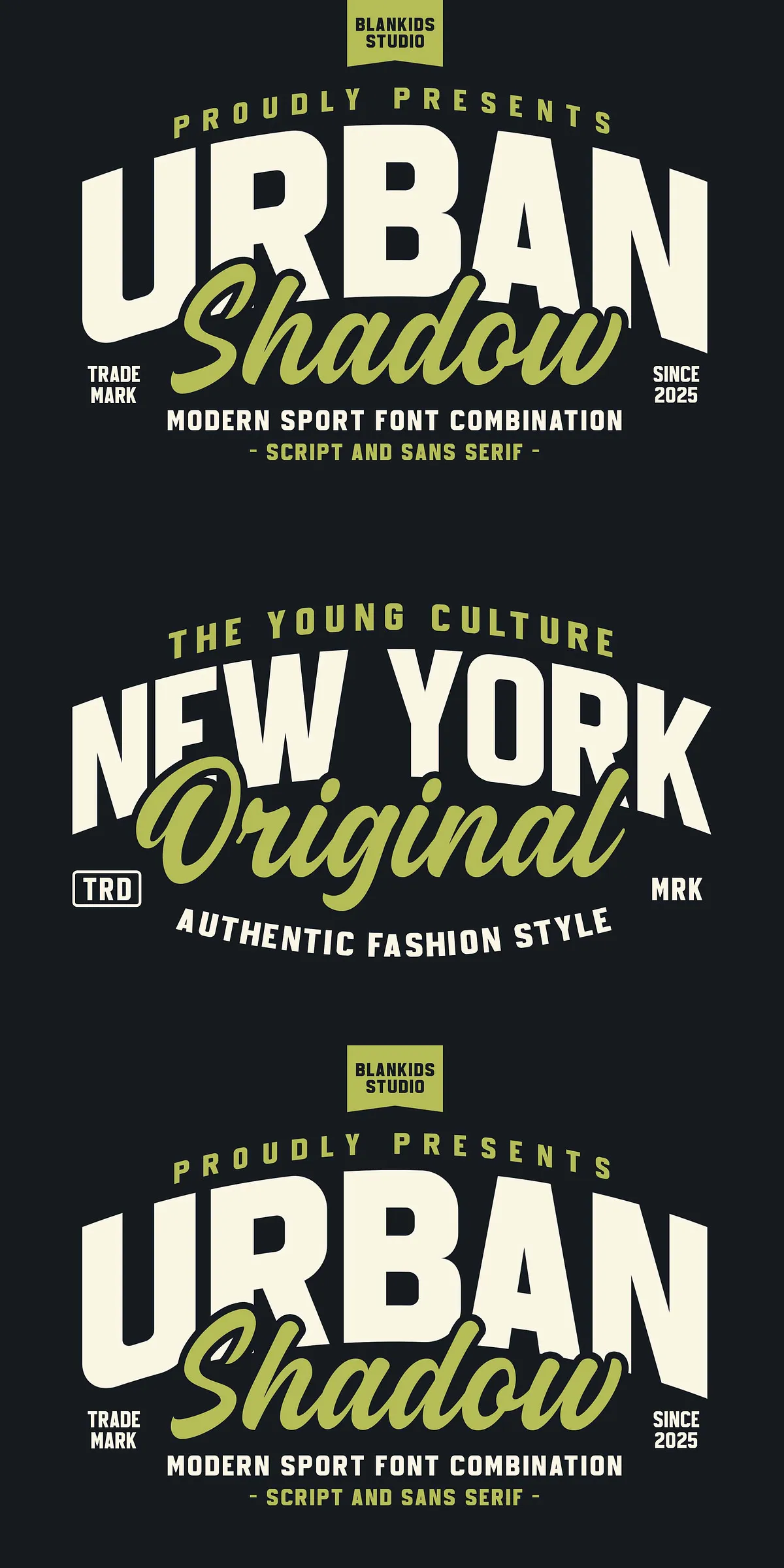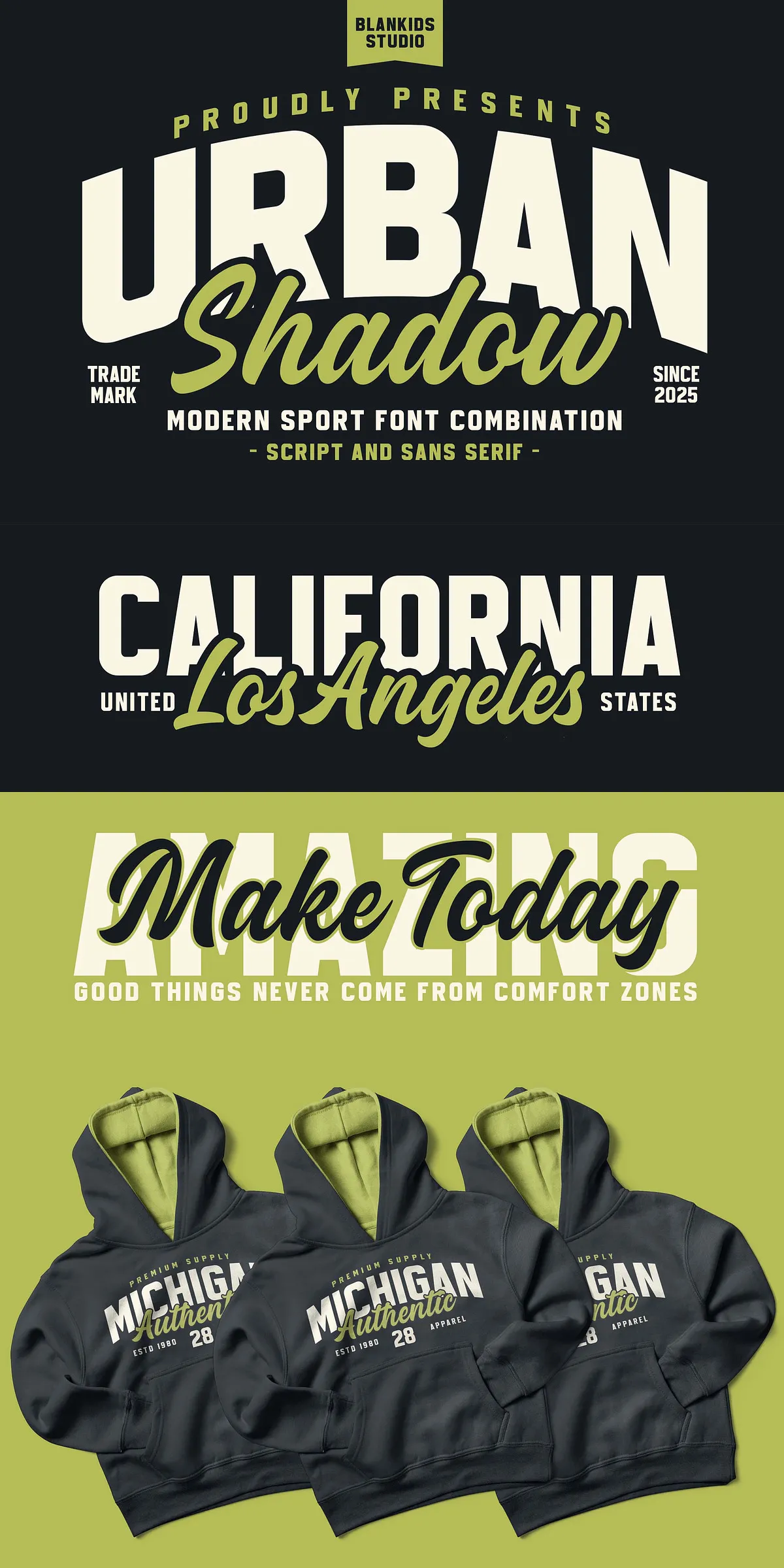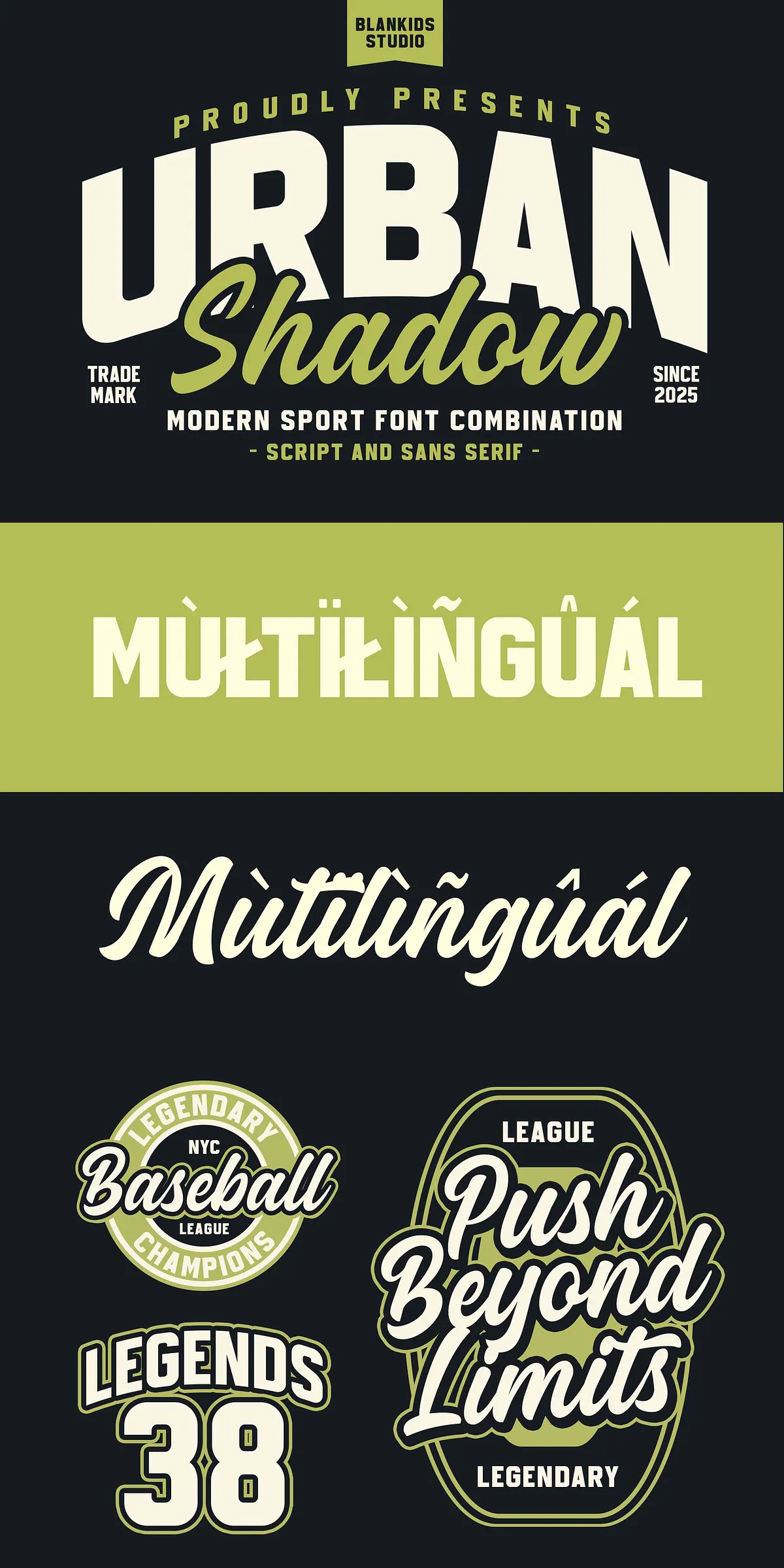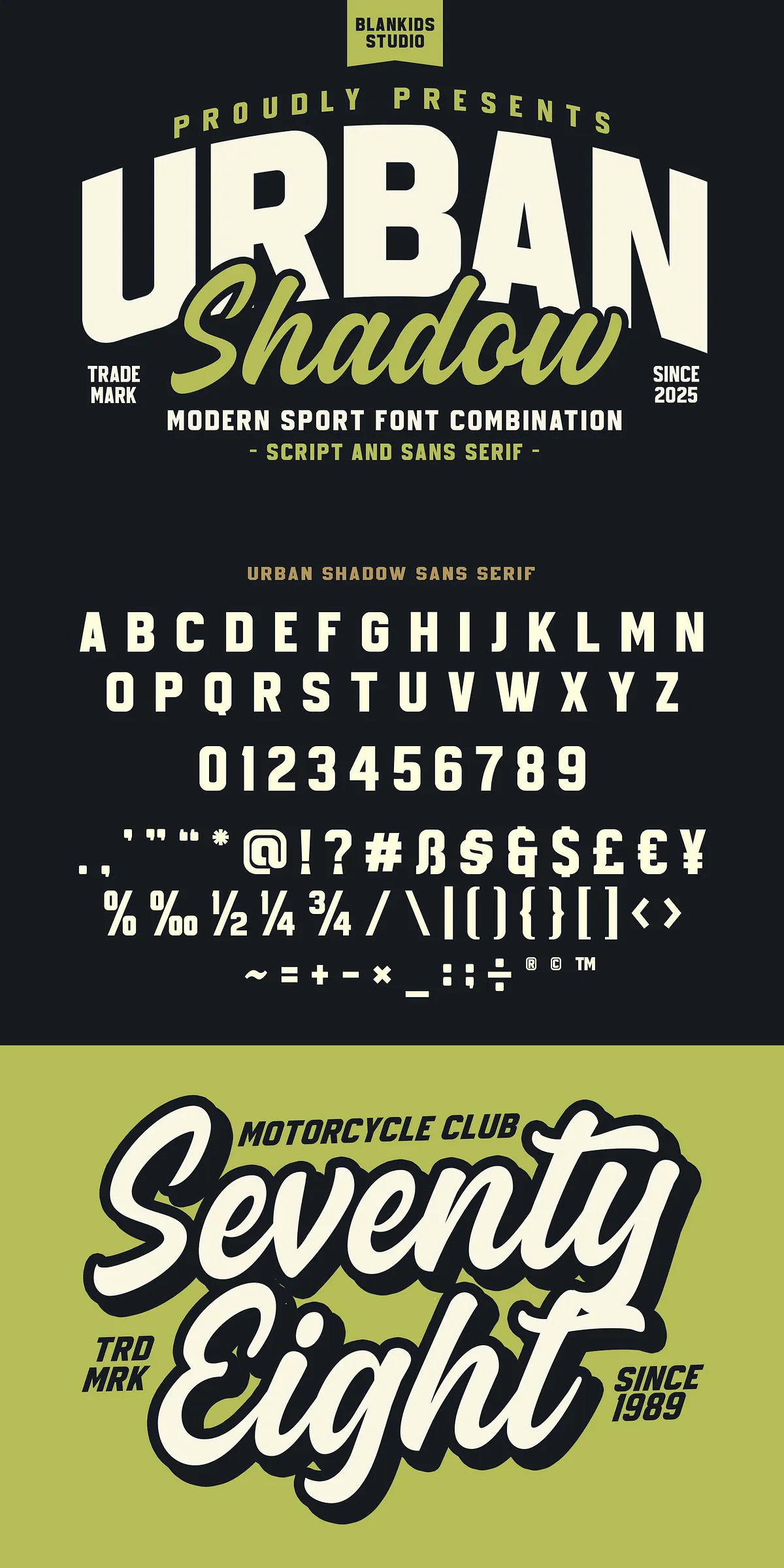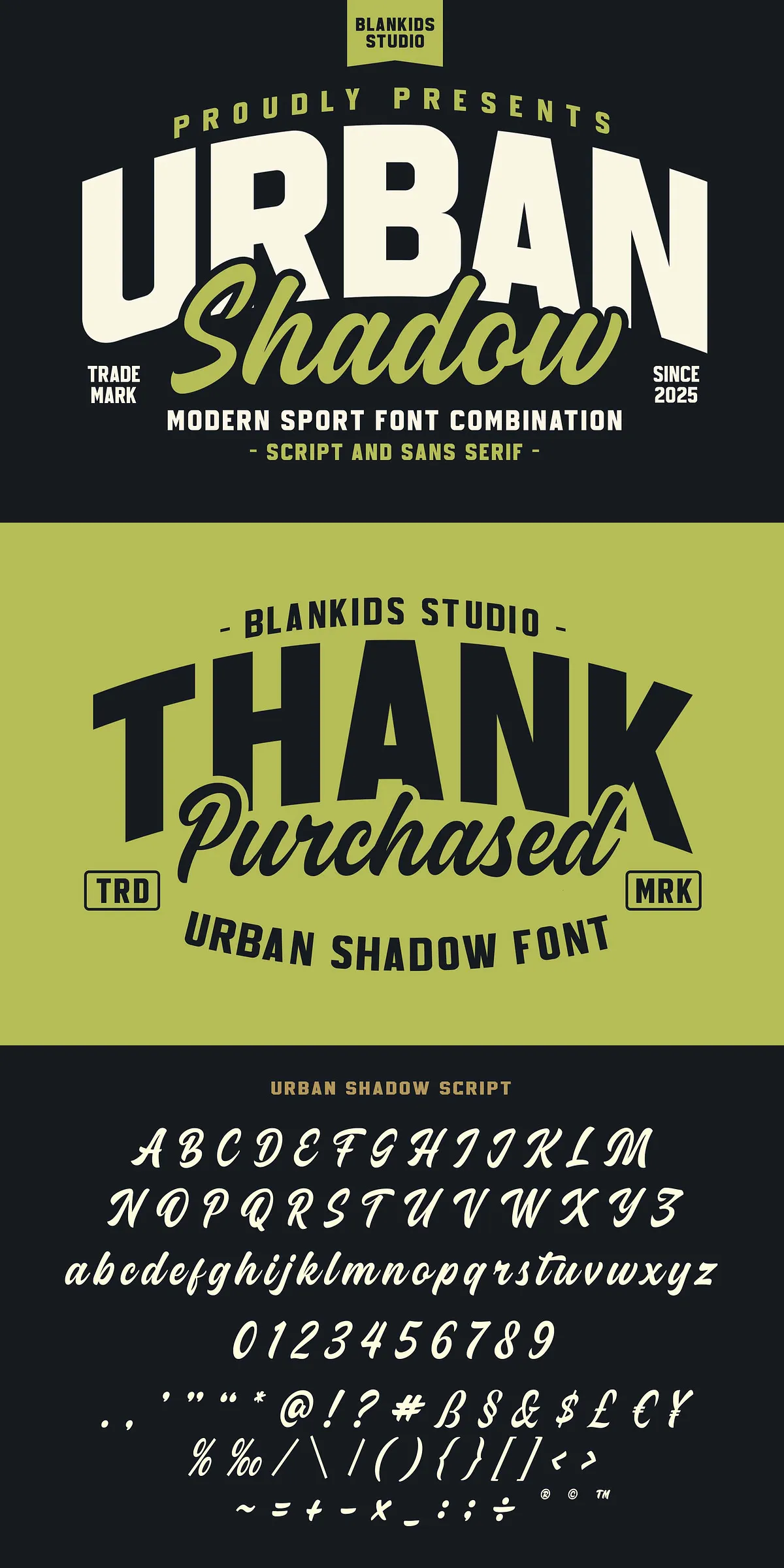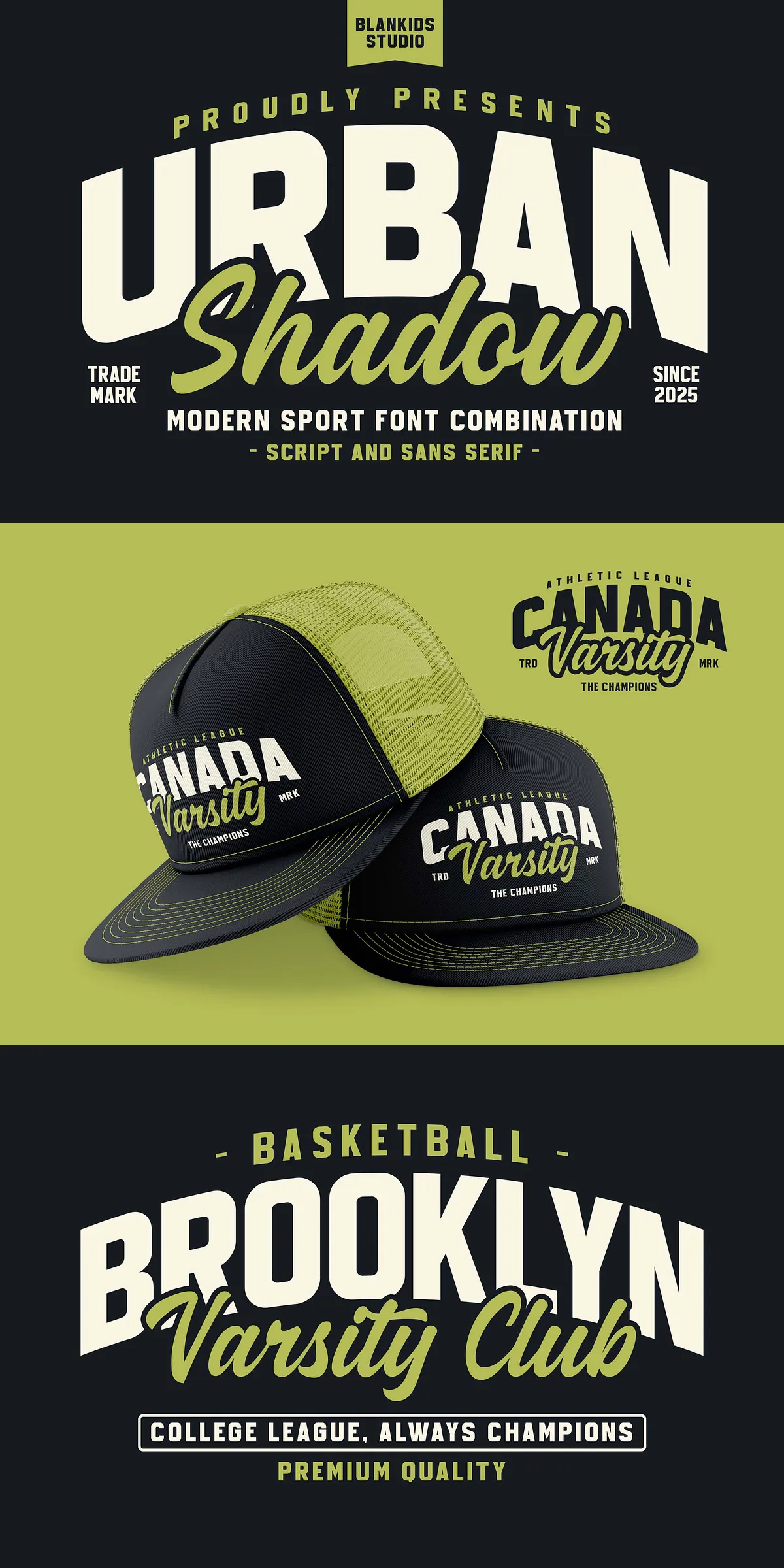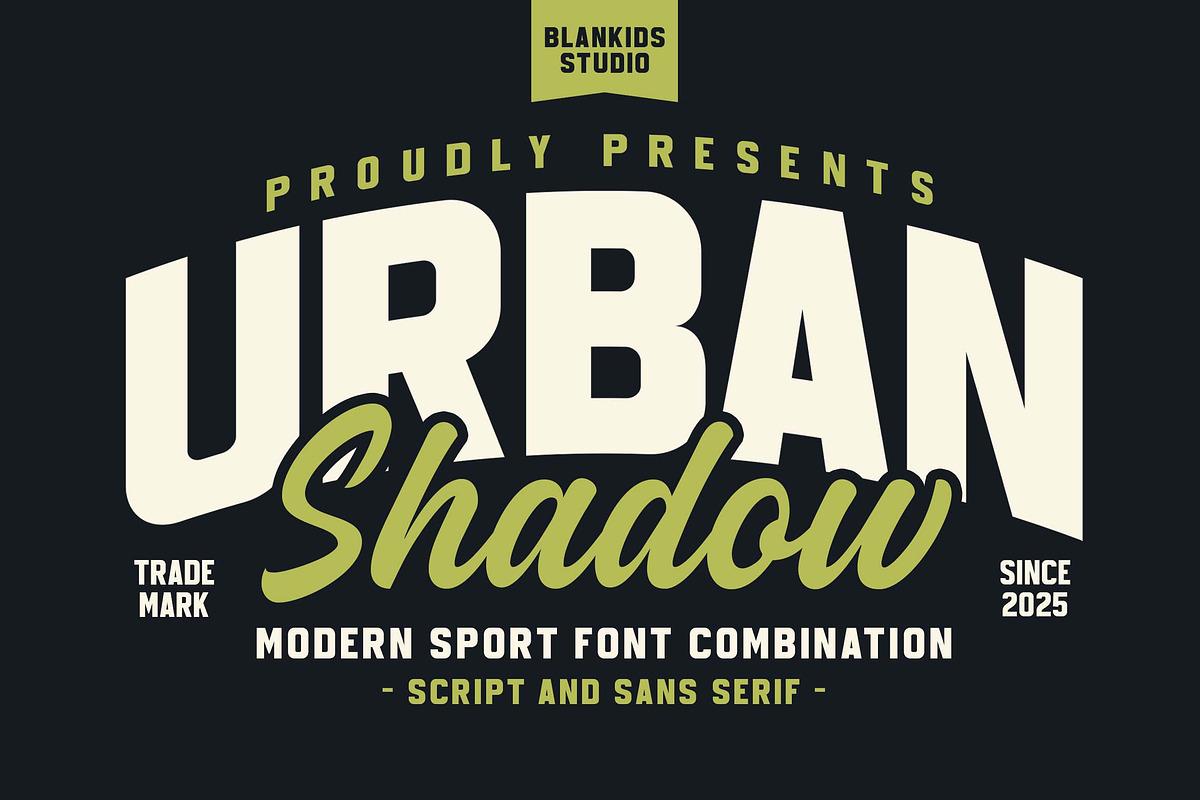
Urban Shadow is a dynamic, modern sport font combination crafted by Blankids Studio for designers who demand energy, clarity, and collegiate personality. This family blends a strong sans serif with a confident script to create a complete typographic toolkit for sports identities, team logos, posters, product packaging, promotional materials, and modern lifestyle brands. Each style channels varsity heritage while remaining fresh and contemporary, giving you a flexible system to build memorable visual communications.
Comprehensive Font Set That Supports Diverse Professional Projects
Multiple Styles Deliver Versatility And Visual Impact
Urban Shadow ships with three complementary font styles: two sans serif variants and one script. The sans serif styles include both classic varsity-inspired letterforms and a more streamlined sporting option, while the script provides fluid signatures, badges, and expressive wordmarks. Use the sans for primary headlines and logo letterforms, then layer the script to add personality and motion. The combination lets you craft everything from bold team logos to refined product labels without compromising consistency.
Key Features That Make Urban Shadow Stand Out In Projects
Varsity-Inspired Letterforms With Modern Proportions
Each letter in Urban Shadow receives careful attention: the uppercase and lowercase shapes carry a collegiate spirit while the proportions stay balanced for modern layouts. The fonts read strongly at large display sizes and maintain clarity in compact applications like watermarks and badges. Numerals, punctuation, and currency symbols are complete, enabling consistent typesetting across branding and packaging systems.
Designed For Branding, Logos, And Promotional Use
Urban Shadow excels when you need bold, confident messaging. Apply the sans styles to logotypes, signage, and headline blocks, and employ the script to craft seals, autographs, and promotional callouts. The system encourages layered typographic treatments—outline effects, stroke variations, and stacked layouts—that evoke athletic traditions while supporting contemporary aesthetics.
Summary And Creative Inspiration For Fast Implementation
Activate Athletic Energy With A Consistent Typographic System
Urban Shadow empowers designers to create cohesive sports and lifestyle identities quickly. Use its strong sans foundations for authoritative display work, pair with the expressive script for human flair, and exploit OpenType features for refined typographic control. Whether you design team uniforms, product packaging, promotional posters, or social media campaigns, Urban Shadow supplies the tools to communicate energy, heritage, and clarity across every touchpoint.